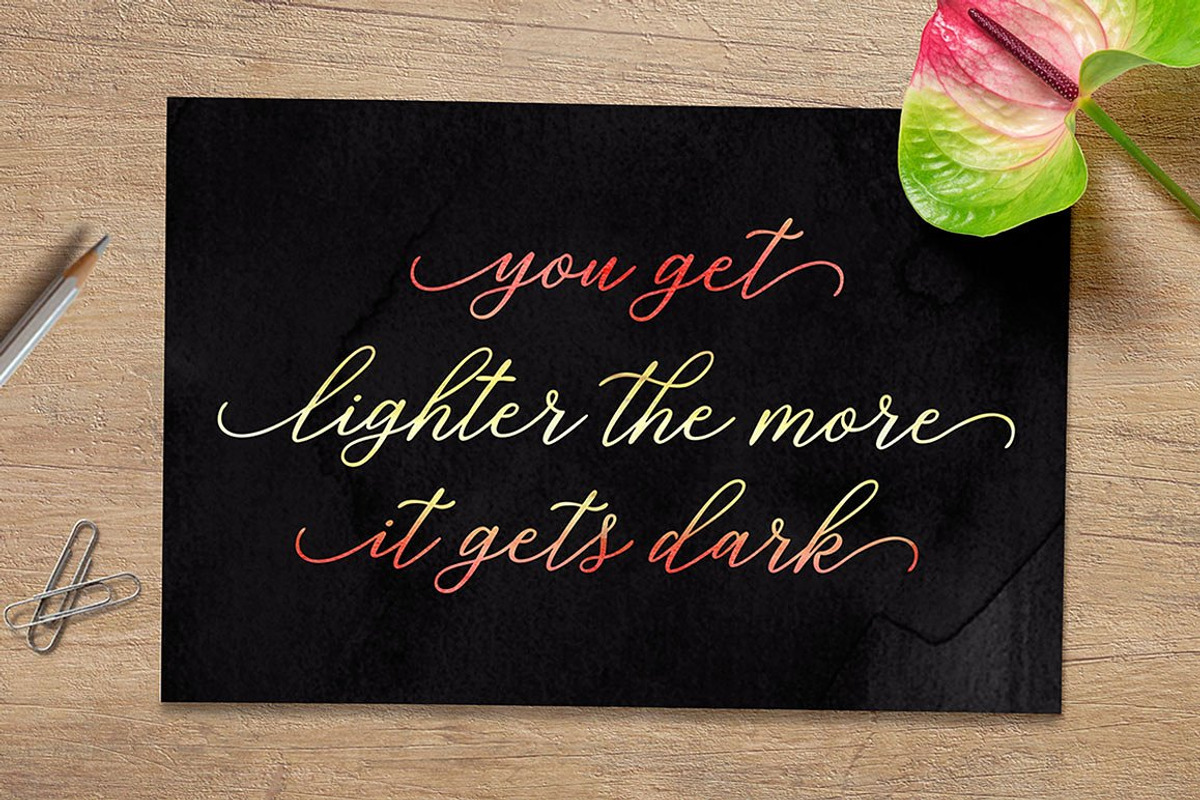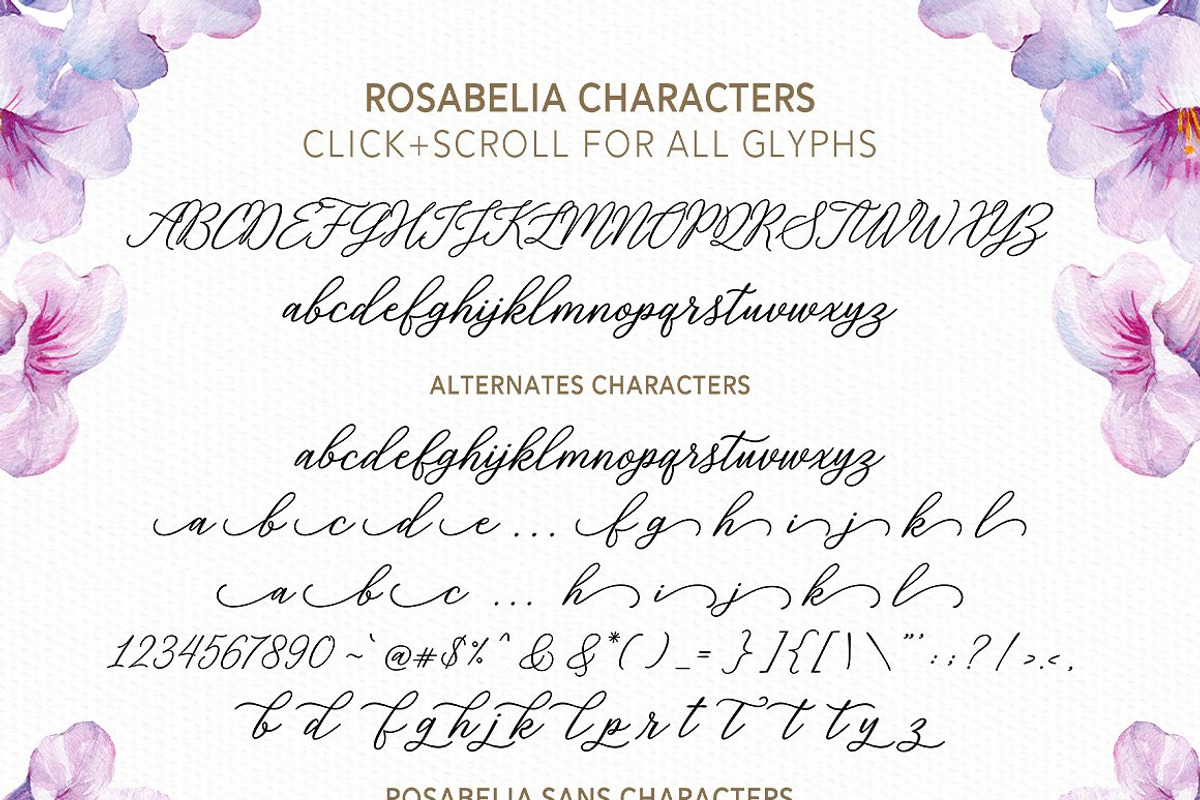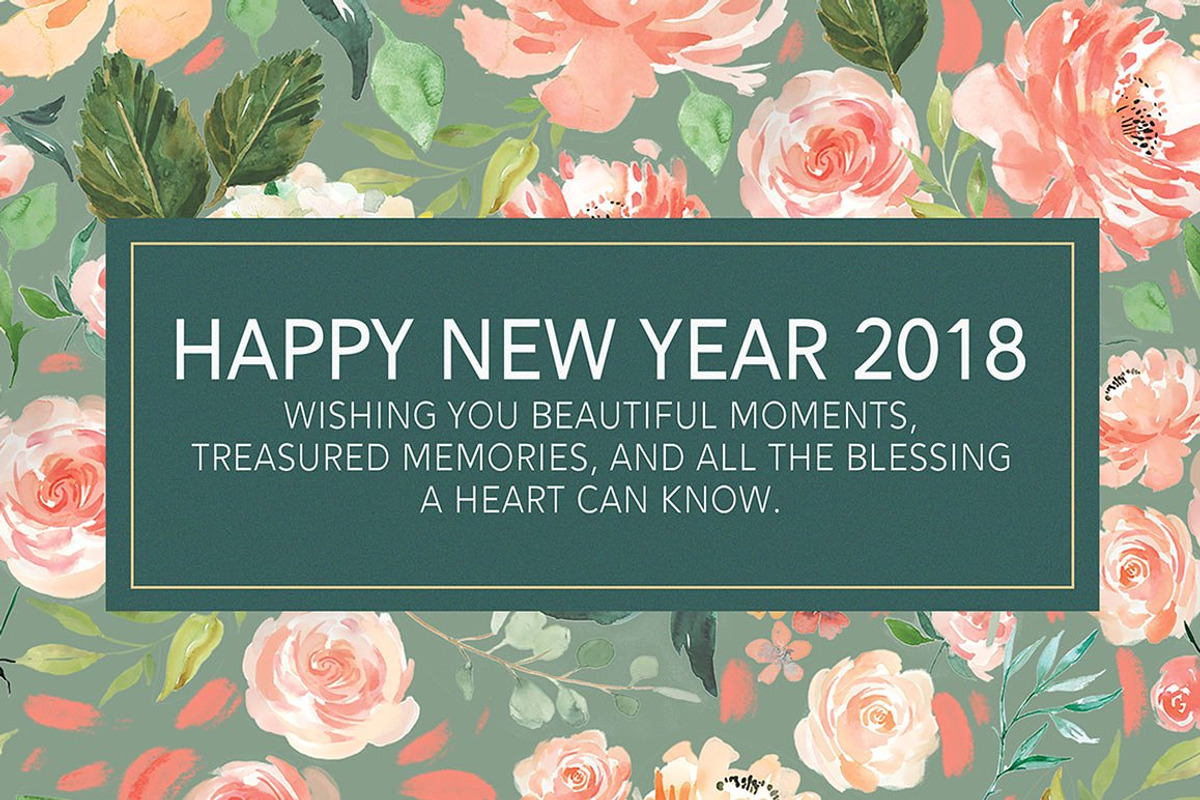
Rosabelia - Script & Sans Serif
Introducing Rosabelia Script!
A new modern script font family, with elegant touch, casual and lovely. It comes with a handy set of opentype stylistic, use the beautiful ligatures, alternates and swashes. You need a program that supports OpenType features such as Adobe Illustrator CS, Adobe Photoshop CC, Adobe Indesign, Microsoft Word 2010. It is perfect for logo, greetings, branding, quotes, prints, invitations and crafting. All lowercase letters include alternates, beginning & end swashes, that makes the font look fabulous!